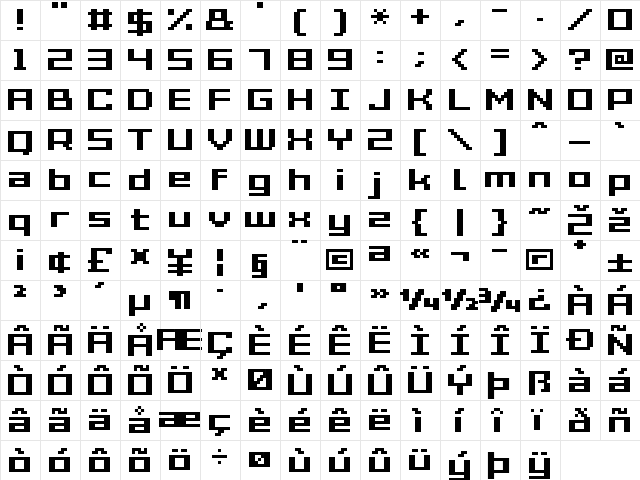
Grixel Acme 7 Wide Bold Regular
Design Context for Grixel Acme 7 Wide Bold Typeface
Grixel Acme 7 Wide Bold is a composed and adaptable typeface that performs quietly and consistently across a wide range of design contexts. The heavy weight commands attention and anchors typographic hierarchies.
Pro Tip: Use Grixel Acme 7 Wide Bold in both headline and body roles to test its range before committing to a single application.